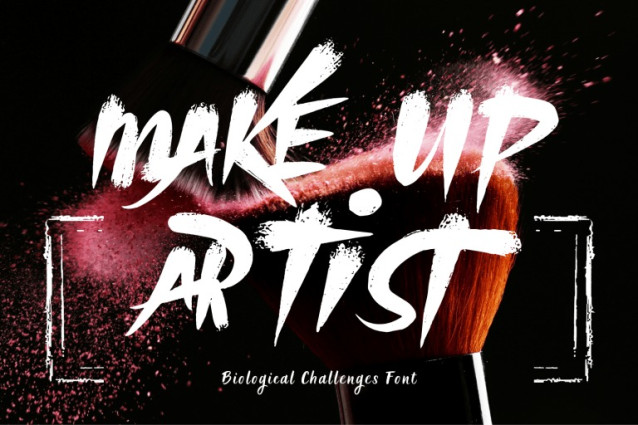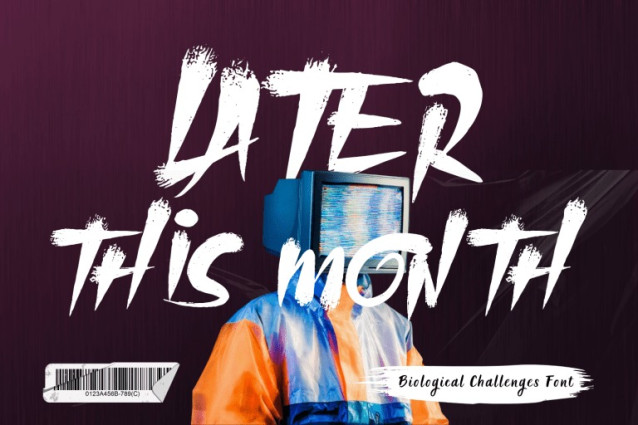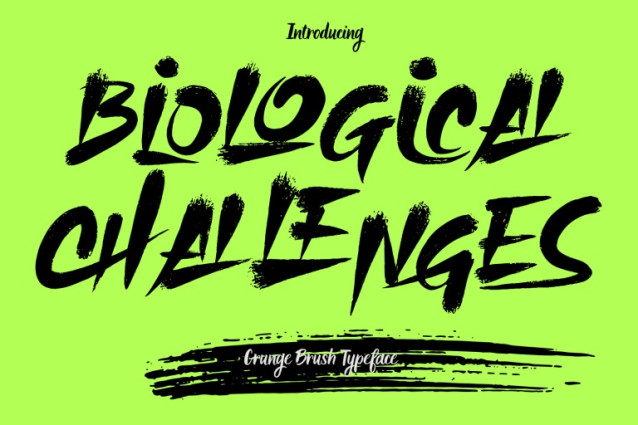
Biological Challenges Font
Biological Challenges – Brush Font – Bold Brush Script Font, a bold and expressive brush script font inspired by raw hand-painted lettering and energetic brush strokes. Designed with rough textures, sharp edges, and dynamic letterforms, this font delivers a powerful visual impact full of movement and emotion. The natural brush flow and irregular strokes create an authentic handwritten feel, while carefully crafted ligatures enhance smooth connections and expressive typography. Every character feels alive, making your designs stand out with confidence and attitude.
🔤Features:
Uppercase Letters
Around 100 Special Ligatures & Alternates
Accented Characters for multilingual support
🔤About 100 ligatures combined with Stylistic Alternates Font: